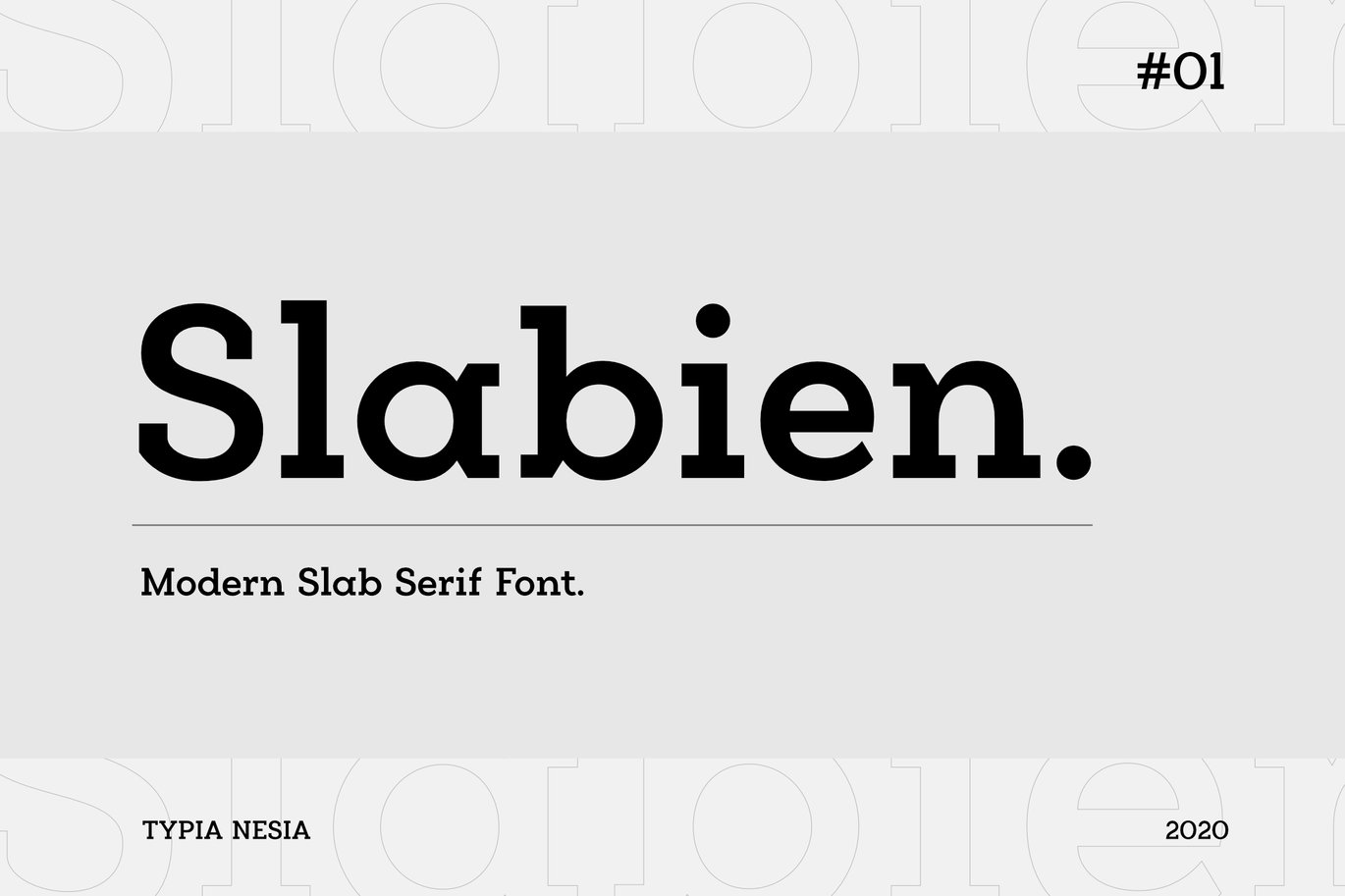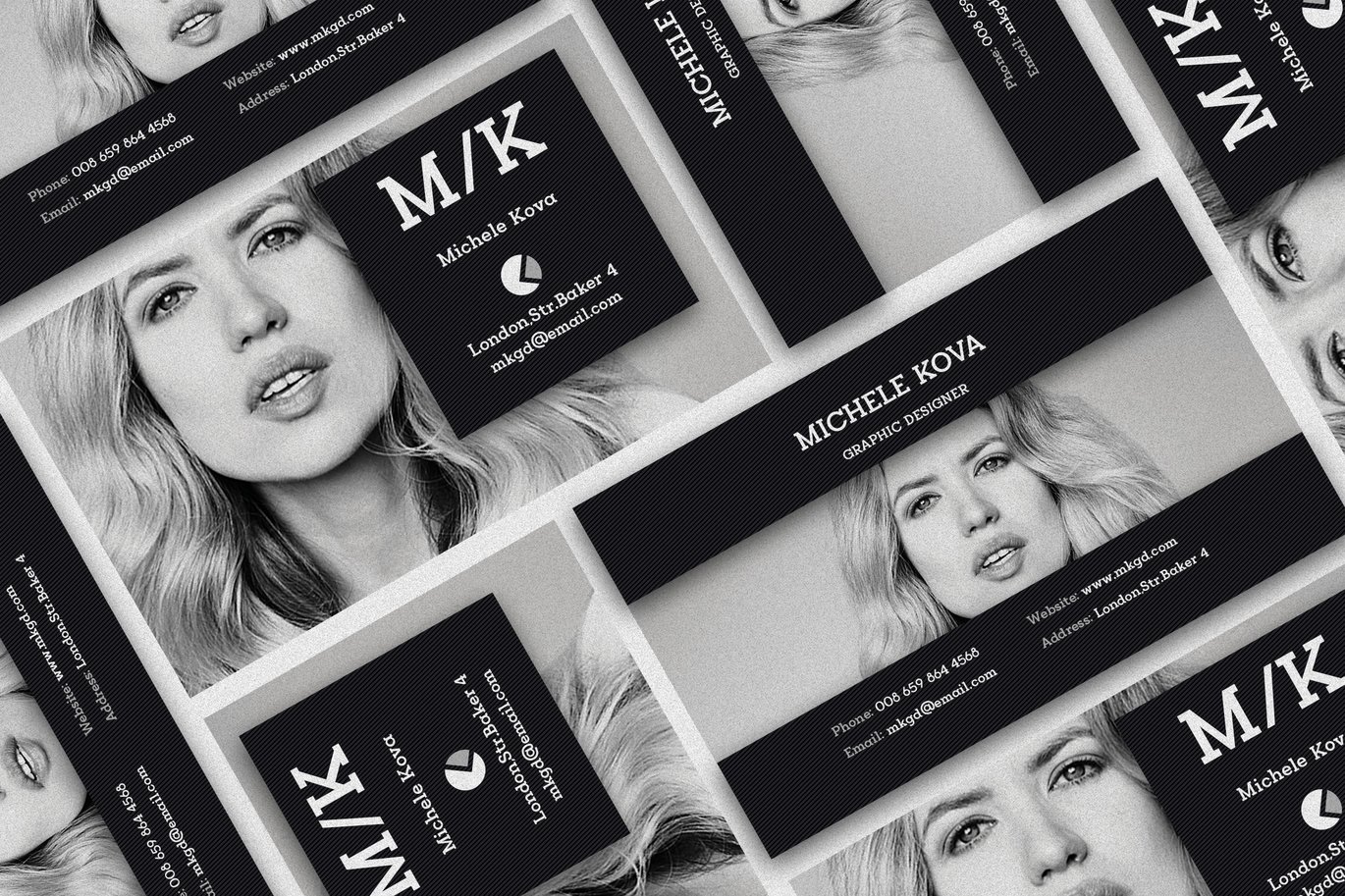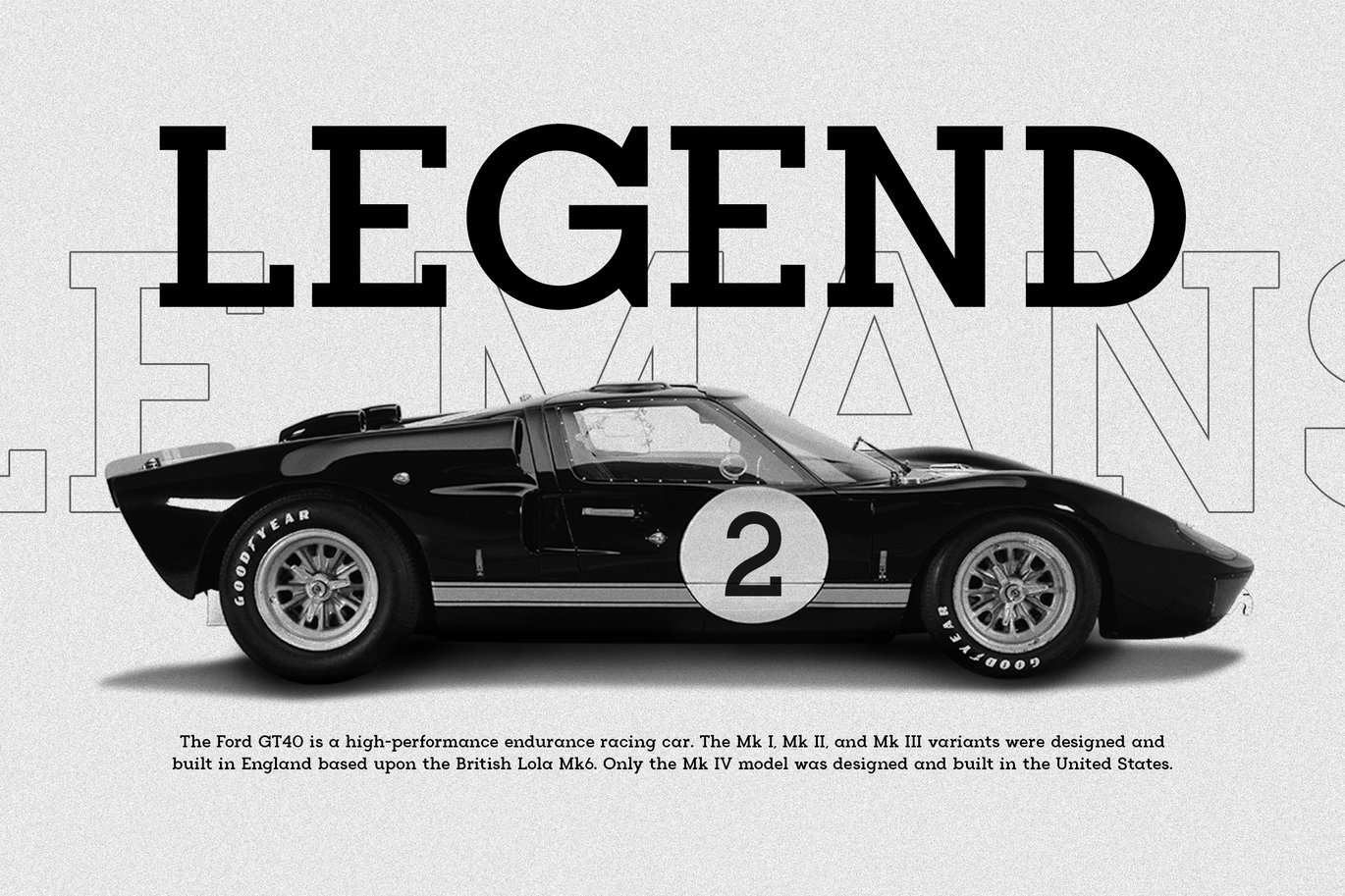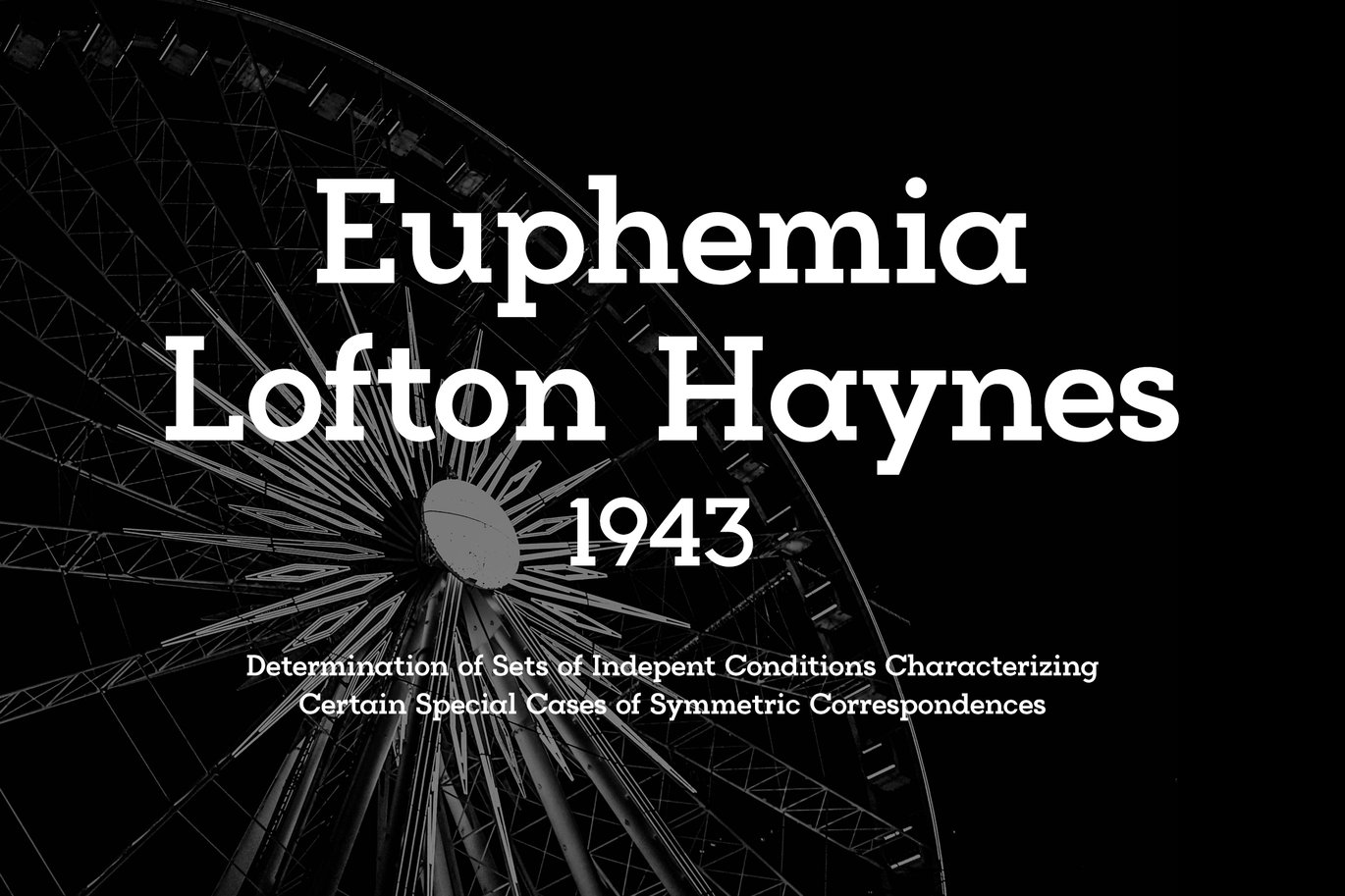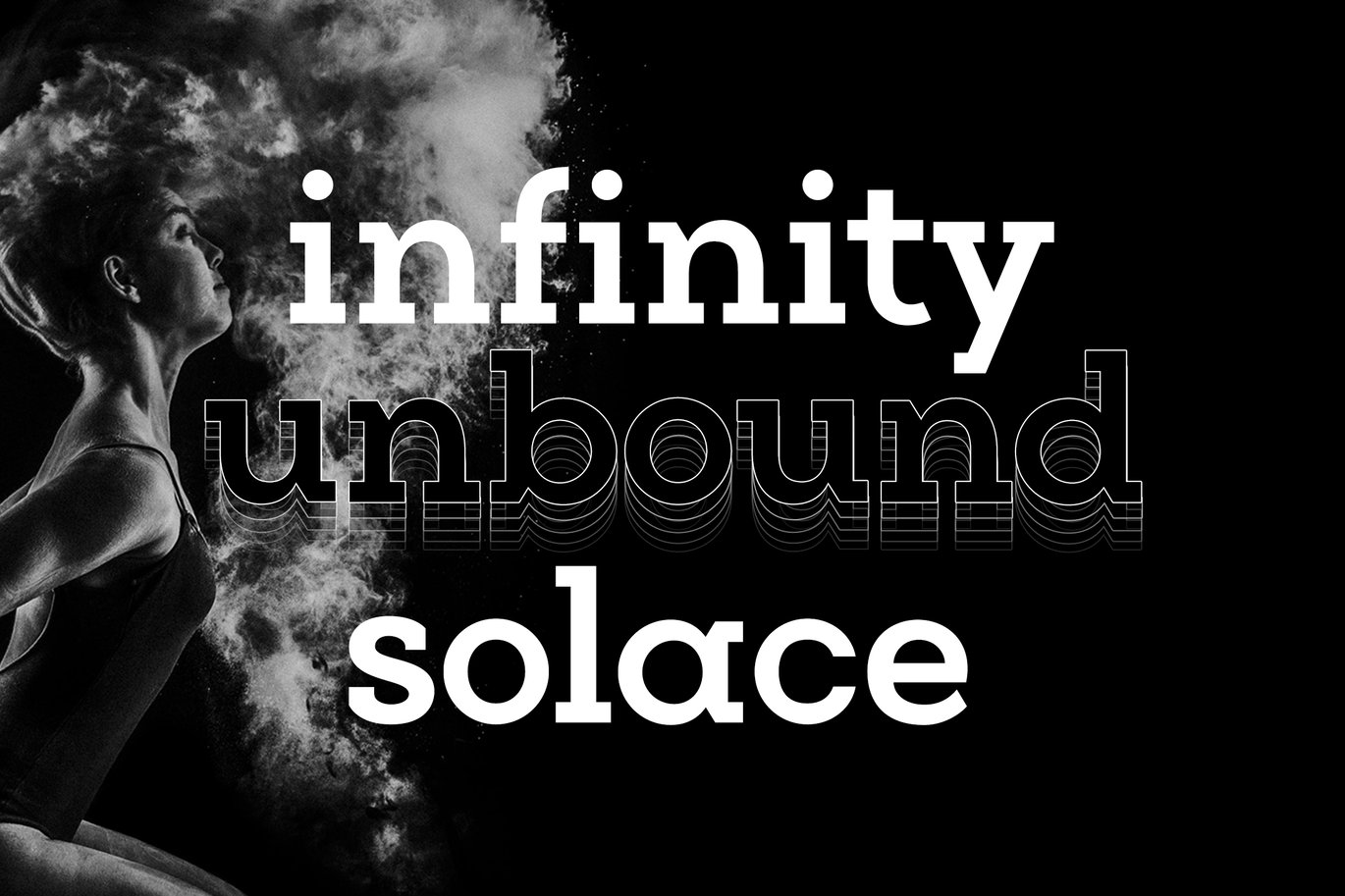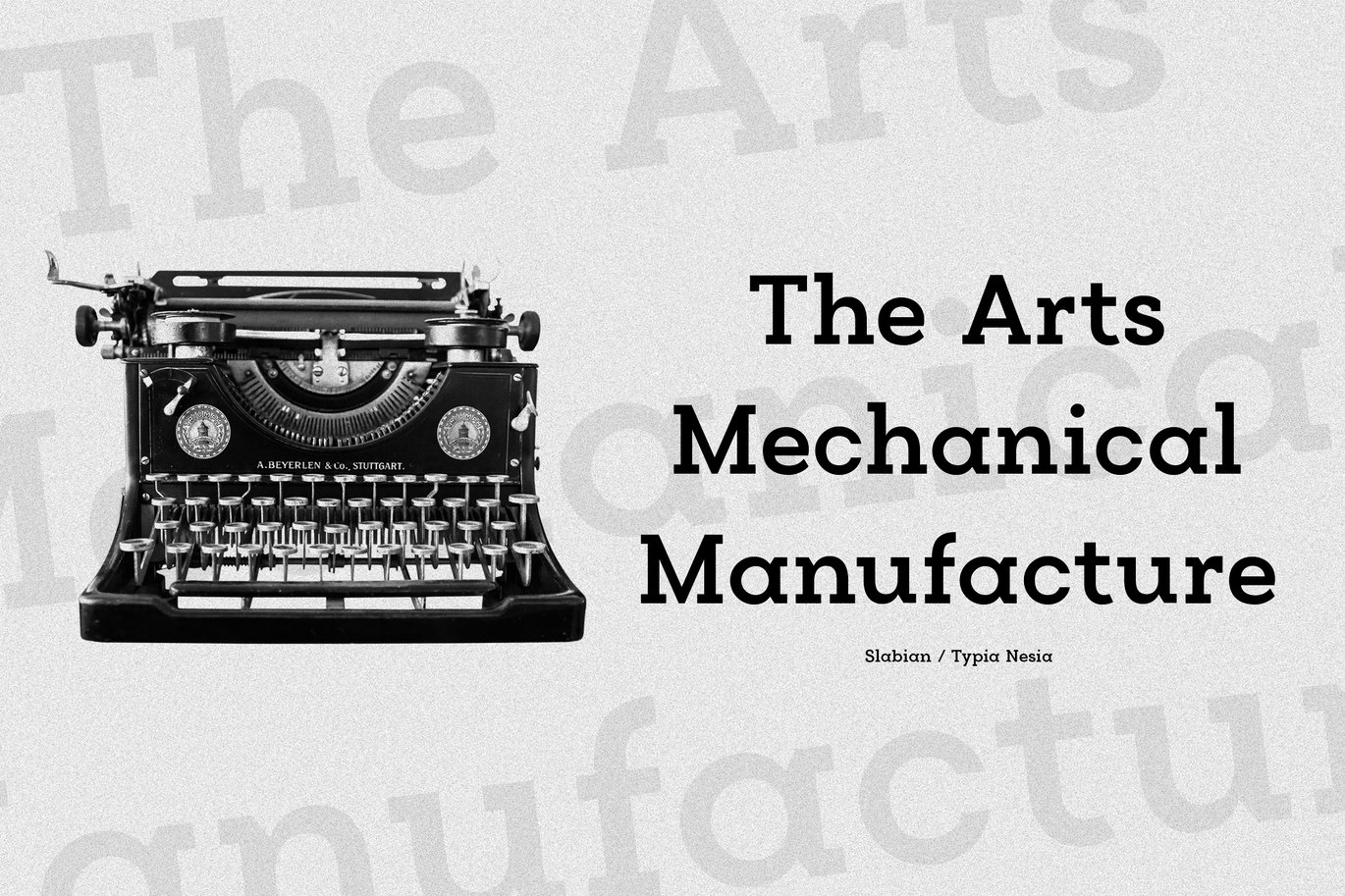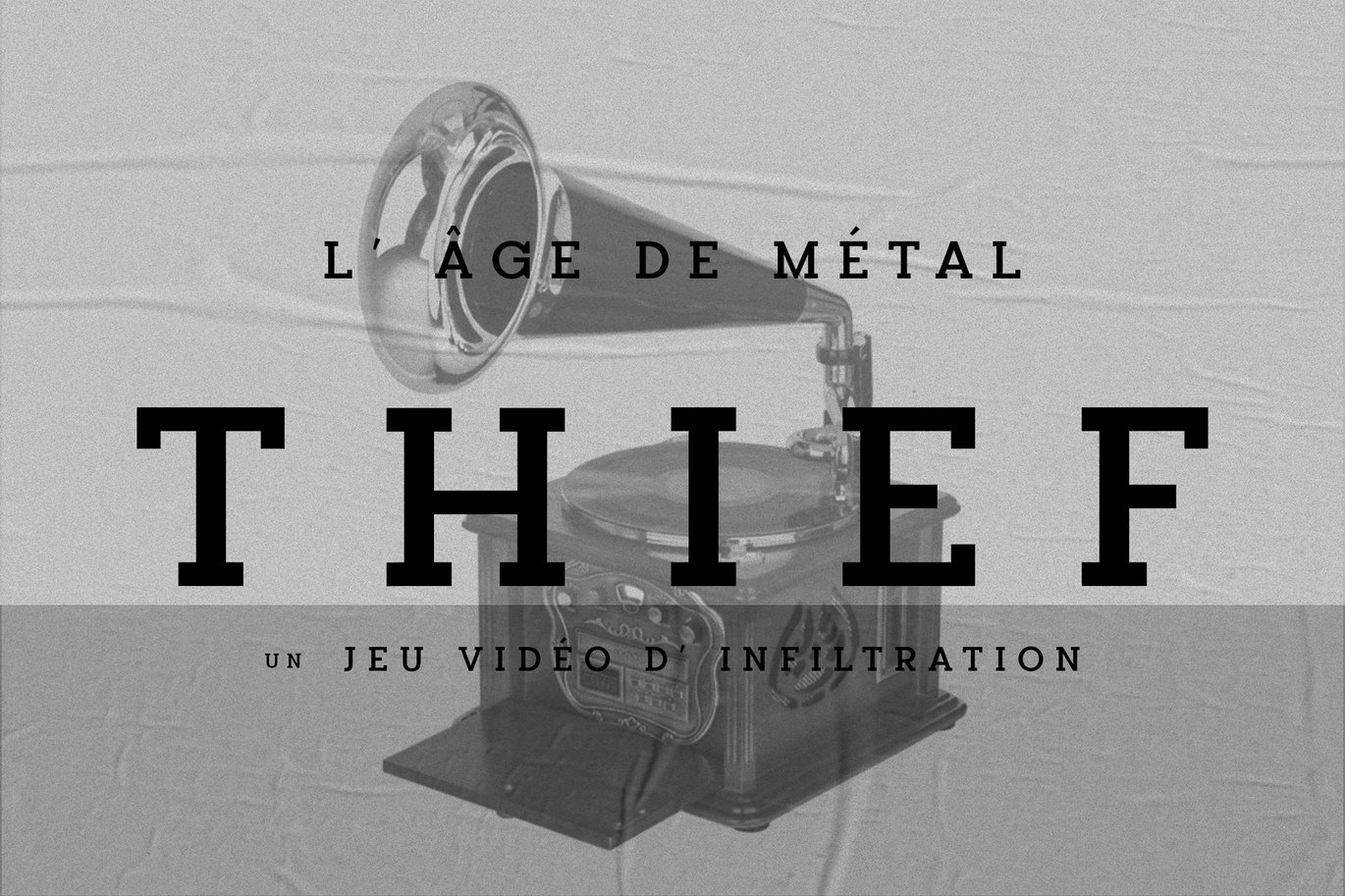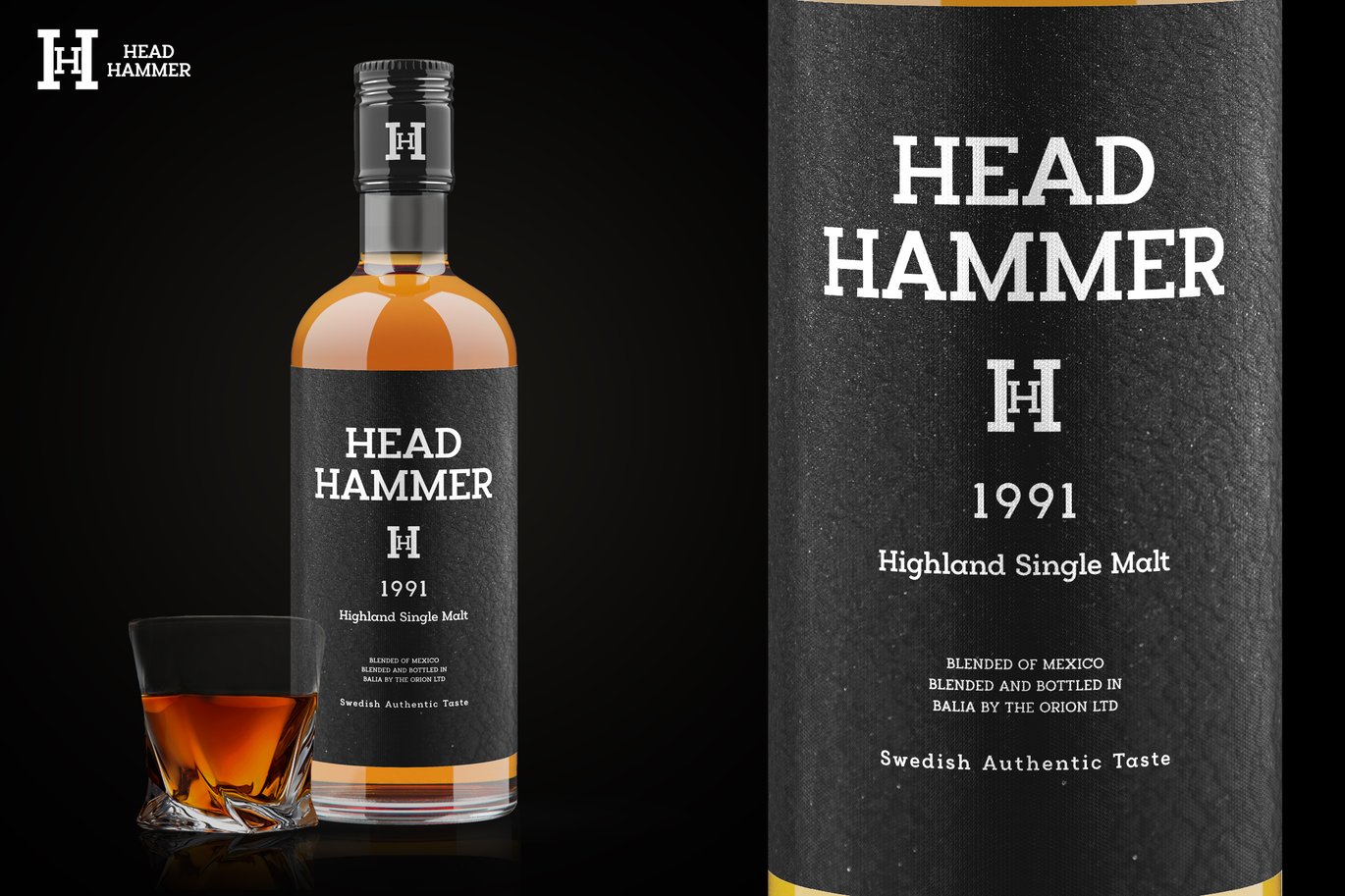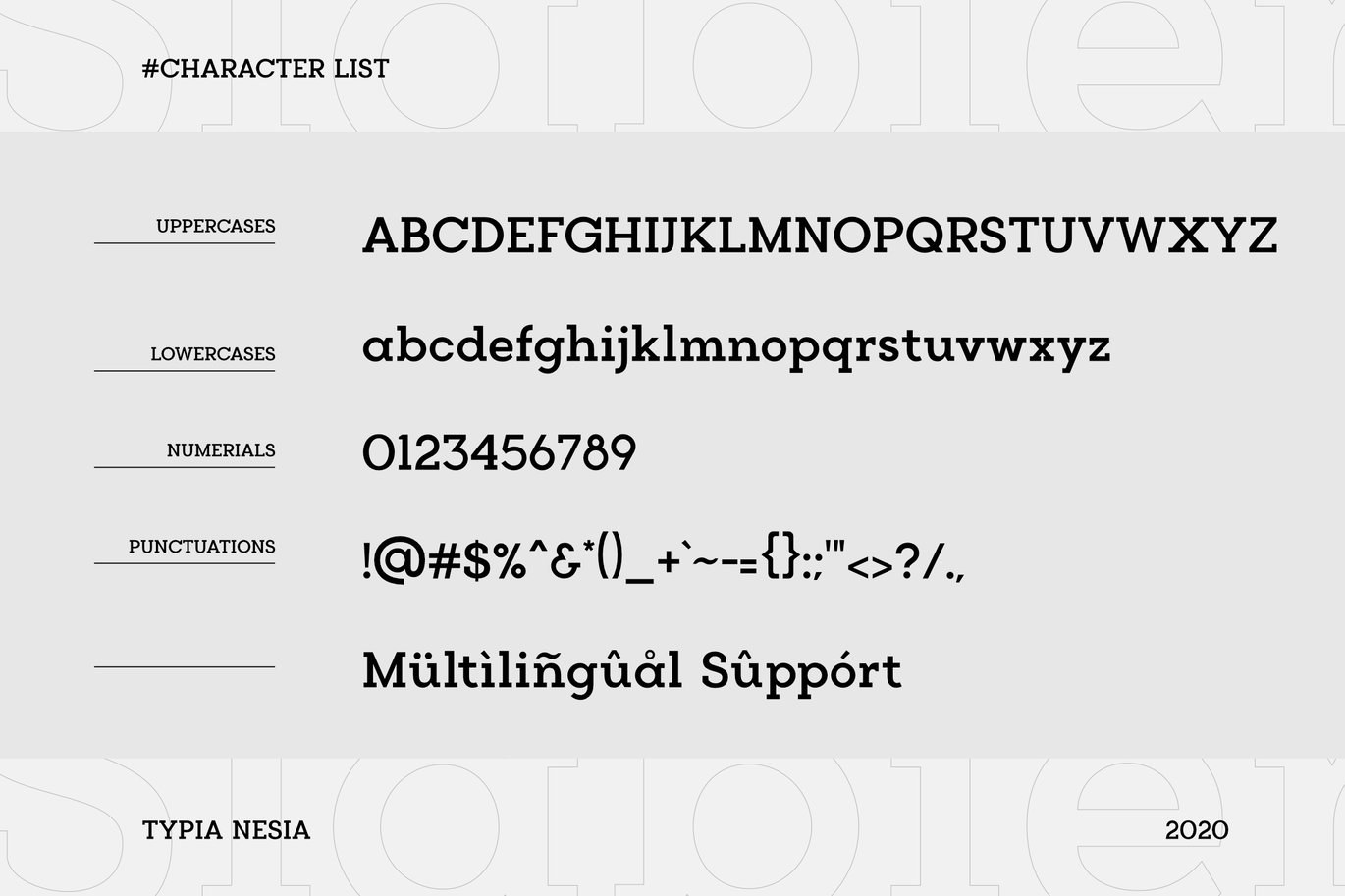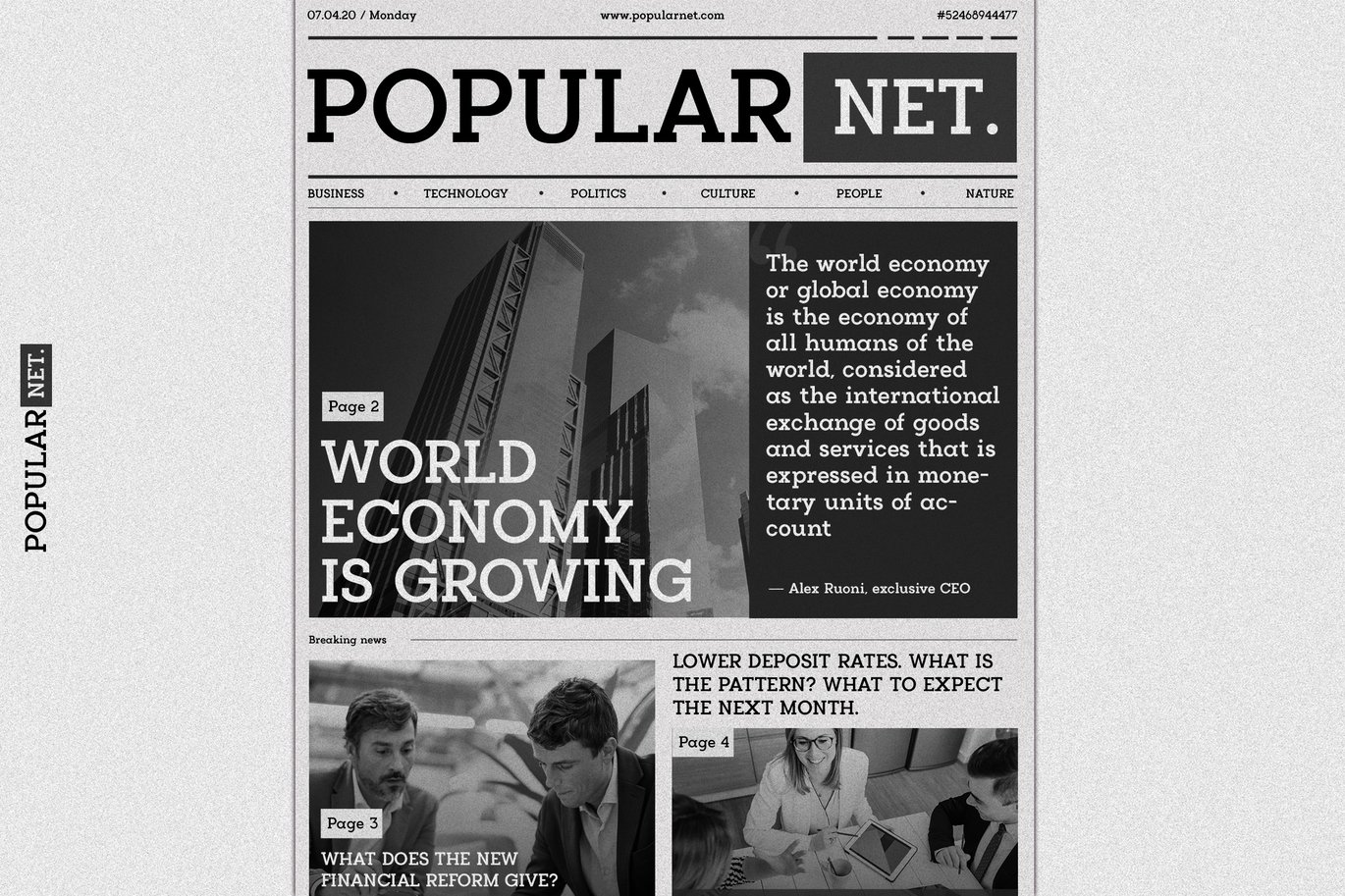
Slabien – Slab Serif Font
Slabien is Modern Slab Serif Font
Slabien font is perfect for your up coming projects. Such as logo branding, editorial design, stationery design, sport design, blog design, modern advertising design, card invitation, art quote, home decor, book/cover title, special events and any more.